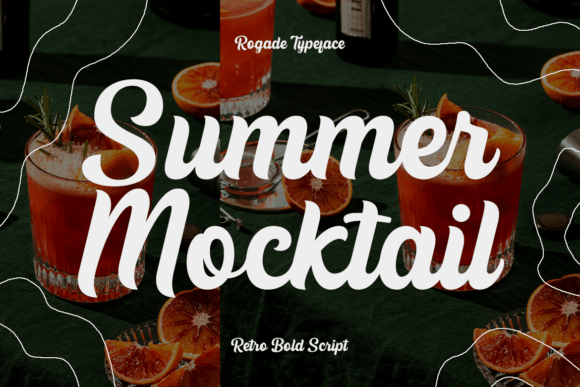
Rogade Font
Rogade is a typeface that injects a dose of nostalgic fun into your designs. Inspired by the groovy lettering of the retro era, Rogade boasts a bold script style with a playful and funky personality. This typeface is a perfect for eye-catching headlines and logo, groovy posters and packaging designs, inviting social media graphics, bringing retro flair to any creative projects, or any design purpose, you named it!